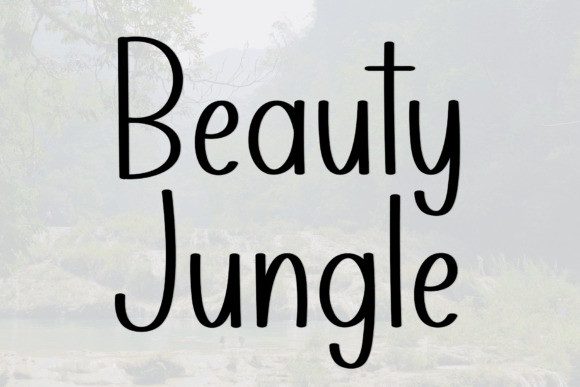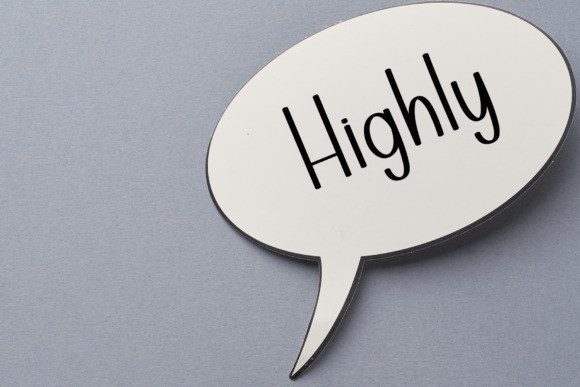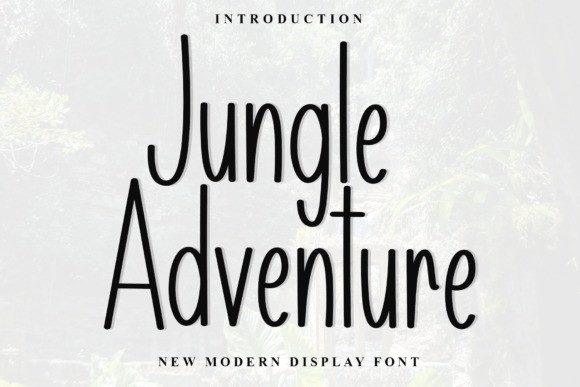
Jungle Adventure Font
Jungle Adventure Font is a sweet and friendly handwritten font. Its natural and unique style makes it incredibly fitting to a large pool of designs. The only limit is your imagination!